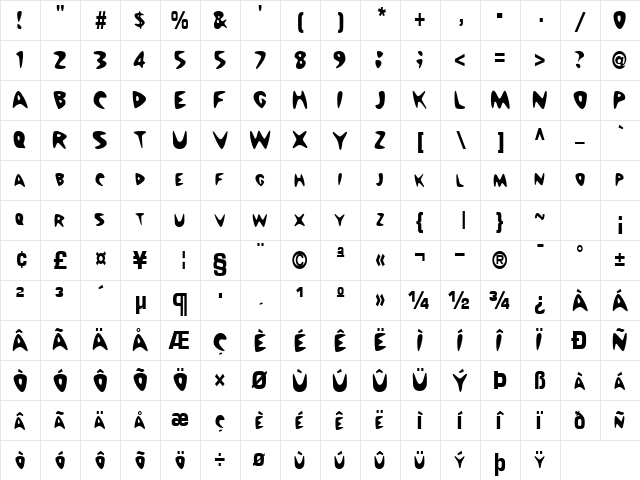
BarneyWay5 Regular
Design Context for BarneyWay5 Typeface
BarneyWay5 is a composed and adaptable typeface that performs quietly and consistently across a wide range of design contexts.